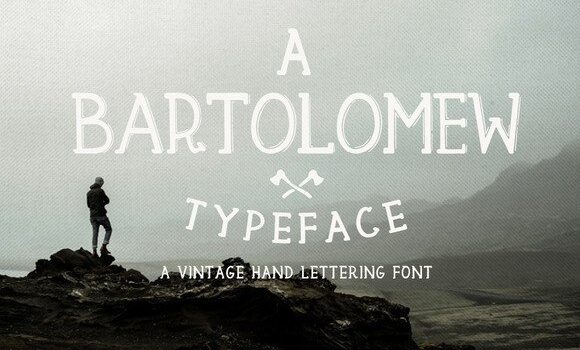
bartolomew
Bartolomew Font – Free Download Introduction to Bartolomew Font Bartolomew is a cool and monoline handwritten font, ideal for use in personal projects or alternative designs. 📸 Preview Gallery 3 images 📌 Product Name Bartolomew Font 👤 Author Blue Robin